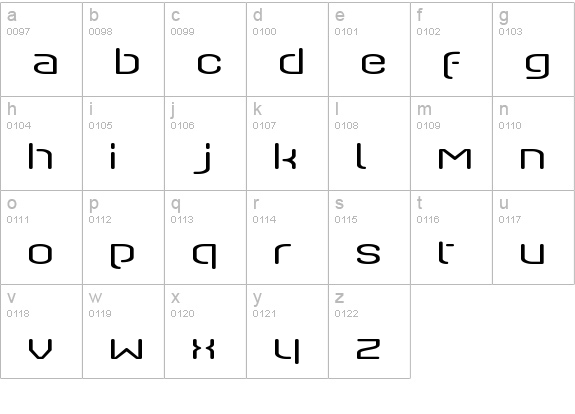
QSwitch Ax Font Details
QSwitch Ax is a stunning and versatile font that is sure to captivate and elevate any design project. With its sleek and modern appearance, this font is perfect for a wide range of applications, including logos, headlines, posters, and more. Designed with meticulous attention to detail, QSwitch Ax features clean lines and elegant curves that give it a sophisticated and professional look. Its unique letterforms are bold and eye-catching, making a powerful statement in any design. One of the best things about QSwitch Ax is that it is completely free. Yes, you read that right - this incredible font is freely available to download at FontsMarket.com. This means that you can add a touch of elegance and style to your designs without breaking the bank. Whether you are a professional designer or a DIY enthusiast, QSwitch Ax is a must-have font in your collection. Its versatility and beauty make it a perfect choice for any project, and its availability as a free download makes it even more appealing. So why wait? Head over to FontsMarket.com and download QSwitch Ax today. Give your designs the edge they deserve with this exceptional font.